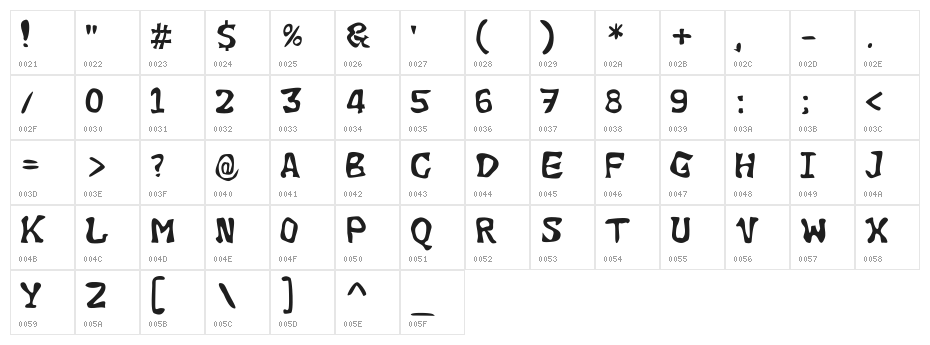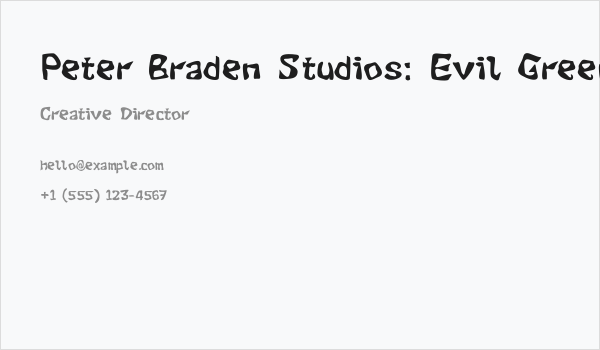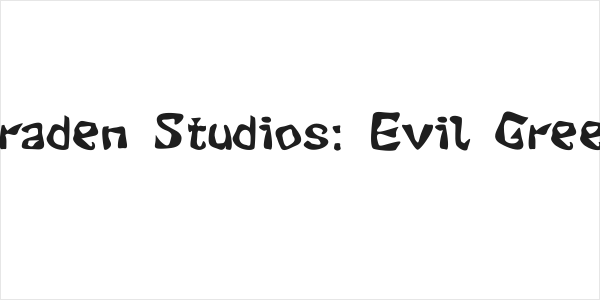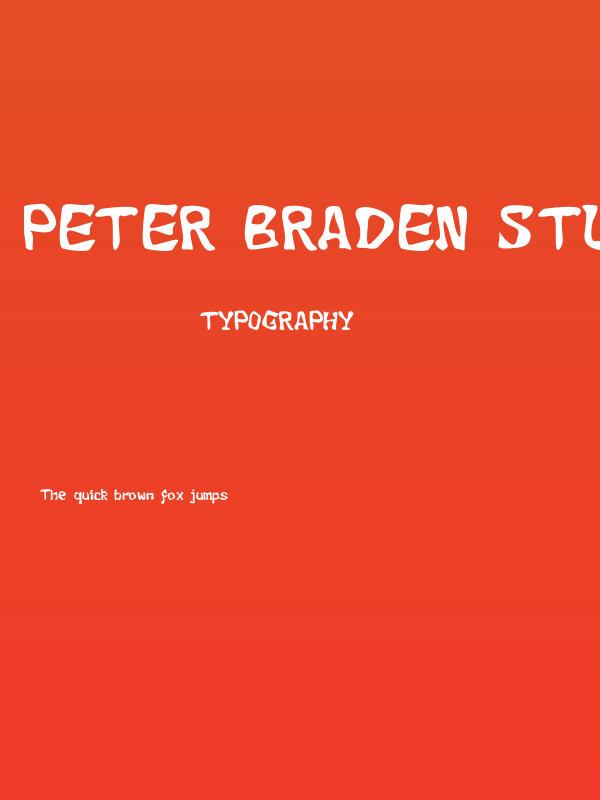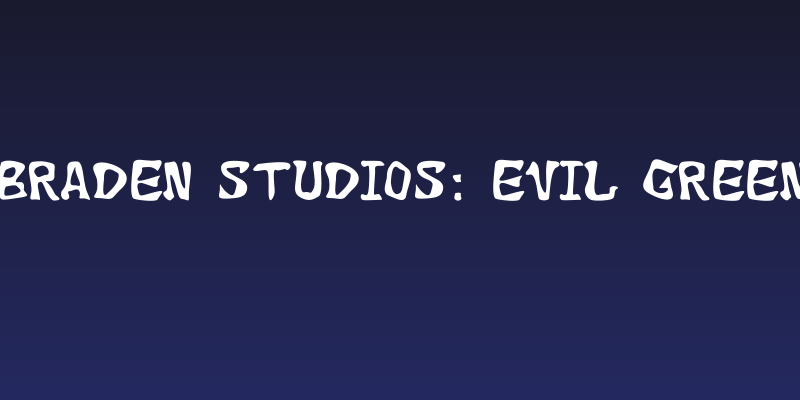
Peter Braden Studios: Evil Green Plant Font
Peter Braden Studios: Evil Green Plant Description
This font features a playful and quirky design with a bold and irregular stroke pattern. The characters have a hand-drawn appearance, giving them a unique and organic feel. The uppercase and lowercase letters maintain a consistent style, with exaggerated curves and uneven lines that add to the whimsical nature of the font. The numbers and special characters follow the same design principles, ensuring a cohesive look across all glyphs. This font is suitable for projects that require a fun and informal touch, making it ideal for creative and artistic applications.
| Proposed Projects | Ideal for children's book covers, playful branding, creative posters, and artistic invitations. |